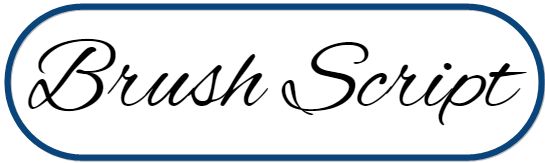
Have you ever come across a font online or in a document that looked as if it were handwritten and thought, 'Wow, that looks elegant!' or 'That adds a personal touch'? Well, you're likely looking at a script font—a unique type of typeface that mimics the ebb and flow of human handwriting.
What is a Script Font?
A script font is a type of typeface designed to imitate the varied and fluid strokes of human handwriting. Often characterized by connected letters and elegant curves, it captures the essence of personal, hand-drawn letters, making it a popular choice for invitations, logos, and more.
Characteristics of a Good Script Font
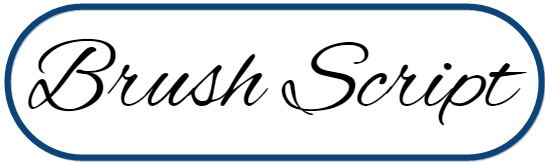
A good script font resembles human handwriting and possesses legibility, balance, and character. When used appropriately, these fonts can elevate the aesthetics of a design, adding a touch of sophistication or personal flair. Key characteristics include:
Legibility
While script fonts are known for their decorative, intricate designs, it's crucial they don't compromise on clarity. This means a reader should be able to discern individual letters and words even at a glance. The font's design shouldn't overdo the flourishes, and the spacing between letters should be consistent.
Versatility
The adaptability of script fonts is a testament to their design. For instance, while a font like Brush Script is excellent for a diner sign or a vintage poster, it might also fit a modern blog header or a promotional banner. Their use shouldn't be confined but rather expansive and adaptable.
Consistency
A stellar script font maintains uniformity. For example, if a font has a vintage design, all its characters, from 'a' to 'z,' should maintain this style. Inconsistencies can disrupt the design flow and the message the typography aims to convey.
Distinctiveness
Amidst the vast sea of typefaces, what makes a script font stand out is its unique identity. It should possess an unmistakable character that differentiates it from its peers.
Types of Script Handwriting
Script fonts can be broadly categorized based on their design inspirations:
Formal Scripts
These are reminiscent of the 17th and 18th-century letterforms, marked by their elegance and fluidity. They are characterized by clean, flowing lines and a sophisticated demeanor. The letters often have elongated ascenders and descenders.
Usage: Ideal for formal invitations, certificates, and premium branding.
Example: Bickham Script, often used in wedding invitations, is a classic representation of formal scripts.
Casual Scripts
These mimic everyday handwriting and tend to be more relaxed and less structured. The characters usually don't have a consistent baseline, and they often feel like they've been hastily written — but in a stylish manner.
Usage: Perfect for informal settings like cafe menus, personal blogs, or greeting cards.
Example: Mistral, with its loose structure, captures the essence of casual handwriting.
Calligraphic Scripts
Drawing inspiration from the age-old art of calligraphy, these fonts echo the strokes of a skilled calligrapher. They have a high contrast in stroke weight – thick downstrokes and thin upstrokes, often with elaborate swashes.
Usage: Suitable for artistic projects, book covers, and event invitations.
Example: Zapfino's intricate design is reminiscent of classic calligraphic art.
Brush Scripts
As the name suggests, these fonts mirror the strokes made with a brush, offering a lively and expressive feel. They have a textured, rugged look, reflecting the bristles of a brush.
Usage: Great for advertising, music album covers, or anywhere a touch of dynamism is needed.
Example: Brush Script MT remains popular for its authentic brush stroke representation.
Notable Examples of Script Fonts
While there's an abundance of script fonts available, certain ones have risen in prominence due to their design and versatility:
- Brush Script: This font stands out for its authentic emulation of brush strokes, making it an instant favorite for designs that require a hand-painted feel. Its free-flowing nature adds a sense of spontaneity to designs, making them feel lively and organic.
- Edwardian Script: Its elegance and refined design make it popular for more formal applications. The delicate curls and elongations in its characters evoke a sense of old-world charm and sophistication, which is why it's frequently chosen for wedding invitations and other ceremonious events.
- Lobster: Merging vintage charm with modern clarity, Lobster's appeal lies in its balance. It captures the essence of the past while being entirely suitable for contemporary designs, especially for those aiming for a retro yet readable aesthetic.
Hand Script Fonts: A Subset of Script Fonts
Hand script fonts are those typefaces that are particularly designed to resemble hand-drawn or handwritten text. They are a sub-category of script fonts but place a greater emphasis on the organic, individual characteristics of handwriting. Examples include "Dancing Script" and "Pacifico," which maintain the charm of individual hand strokes, making them perfect for designs aiming for a personal touch.